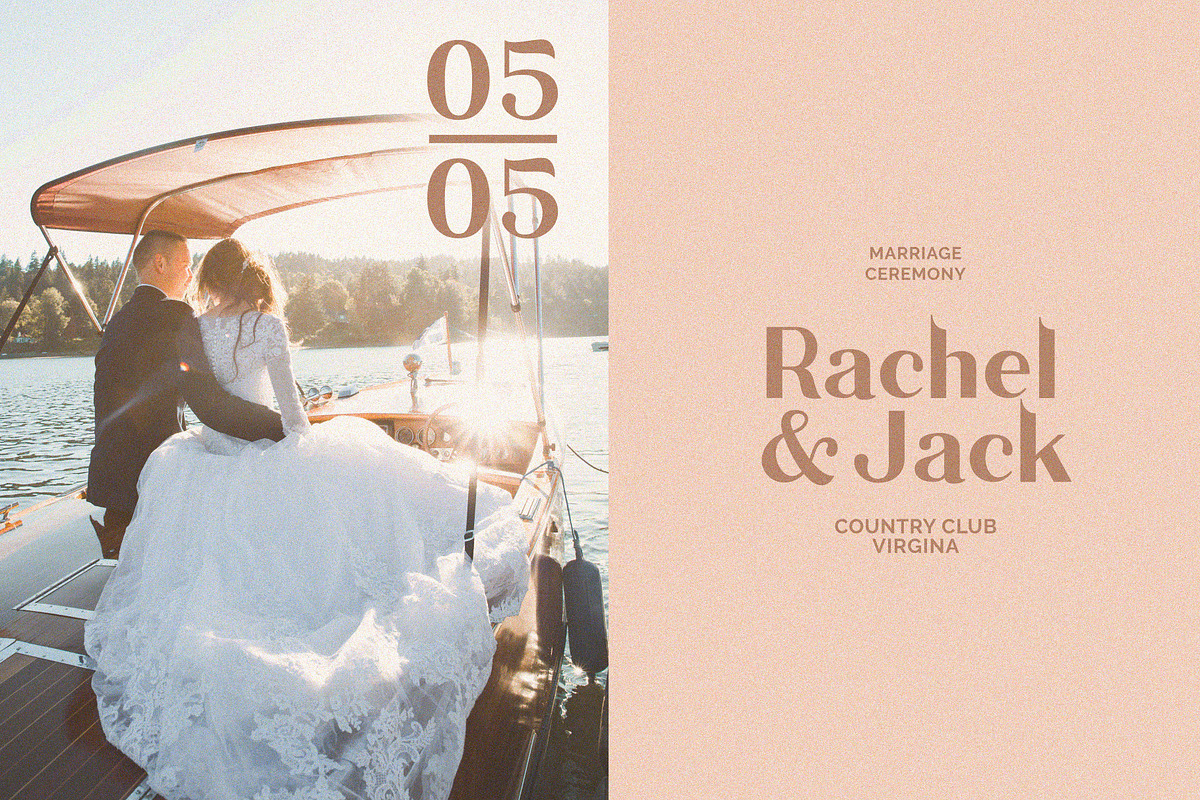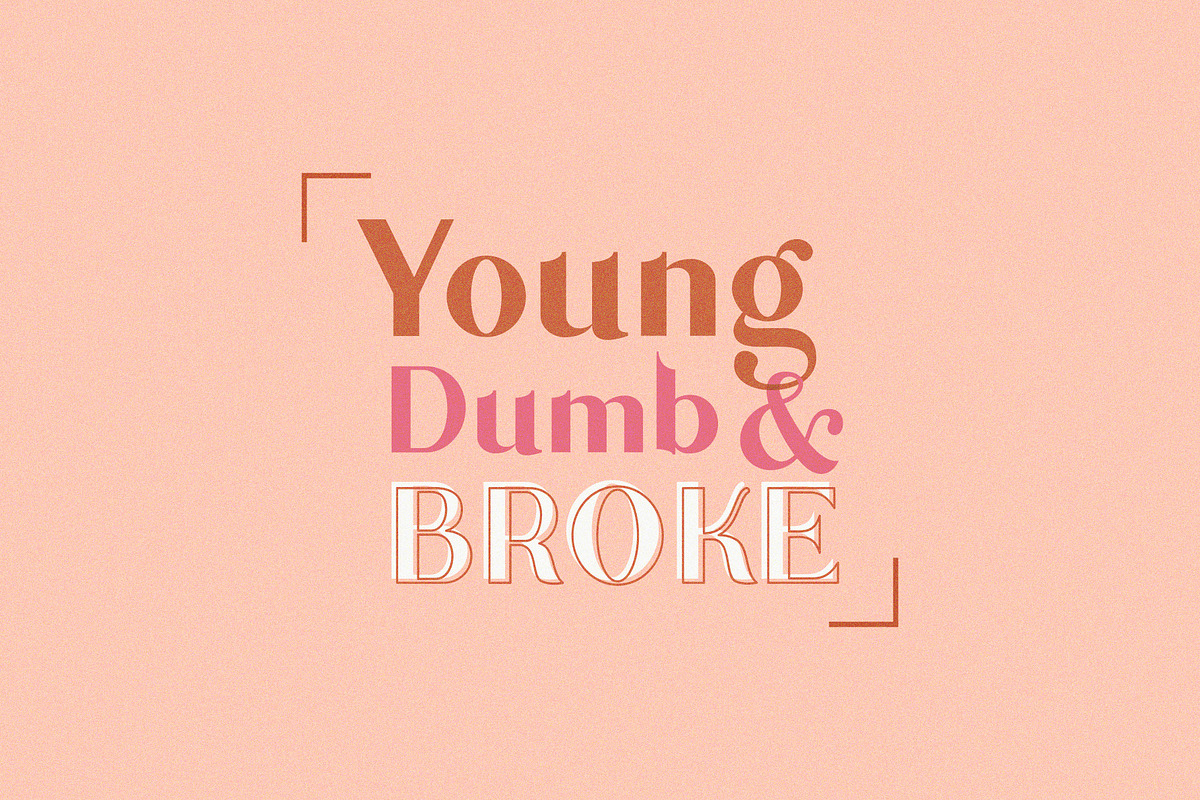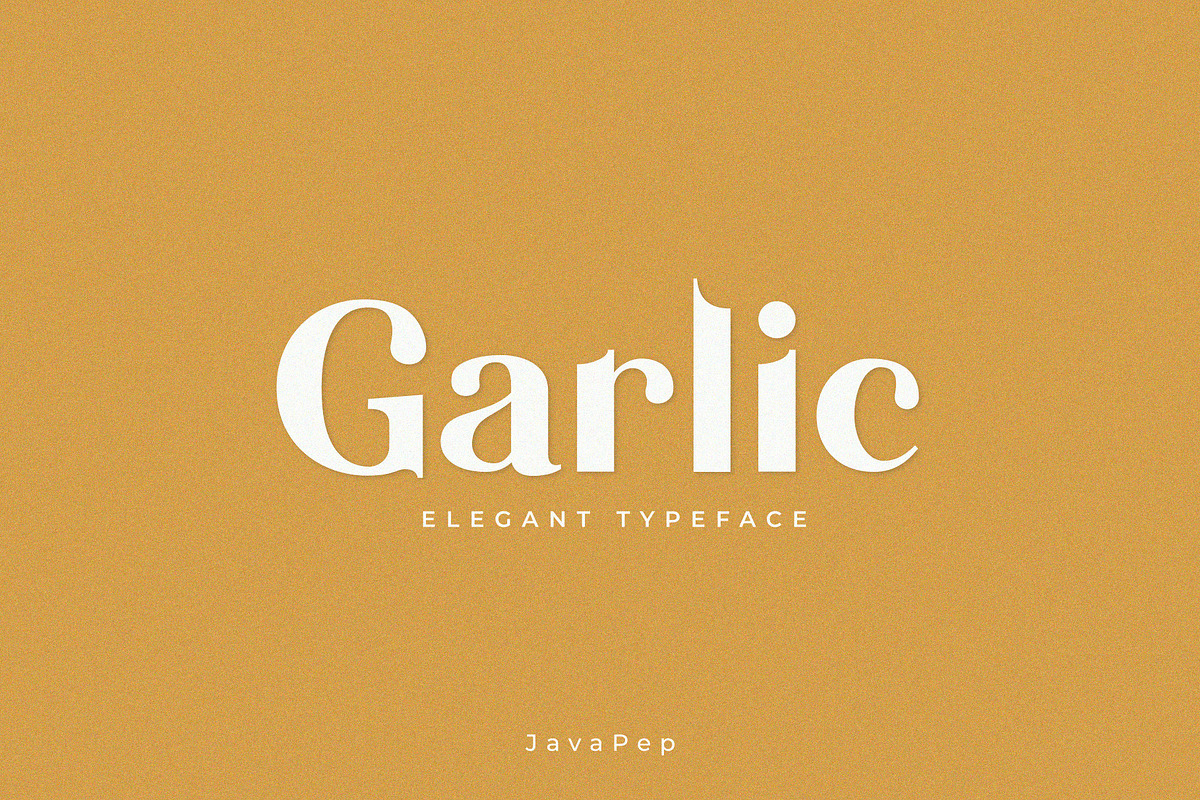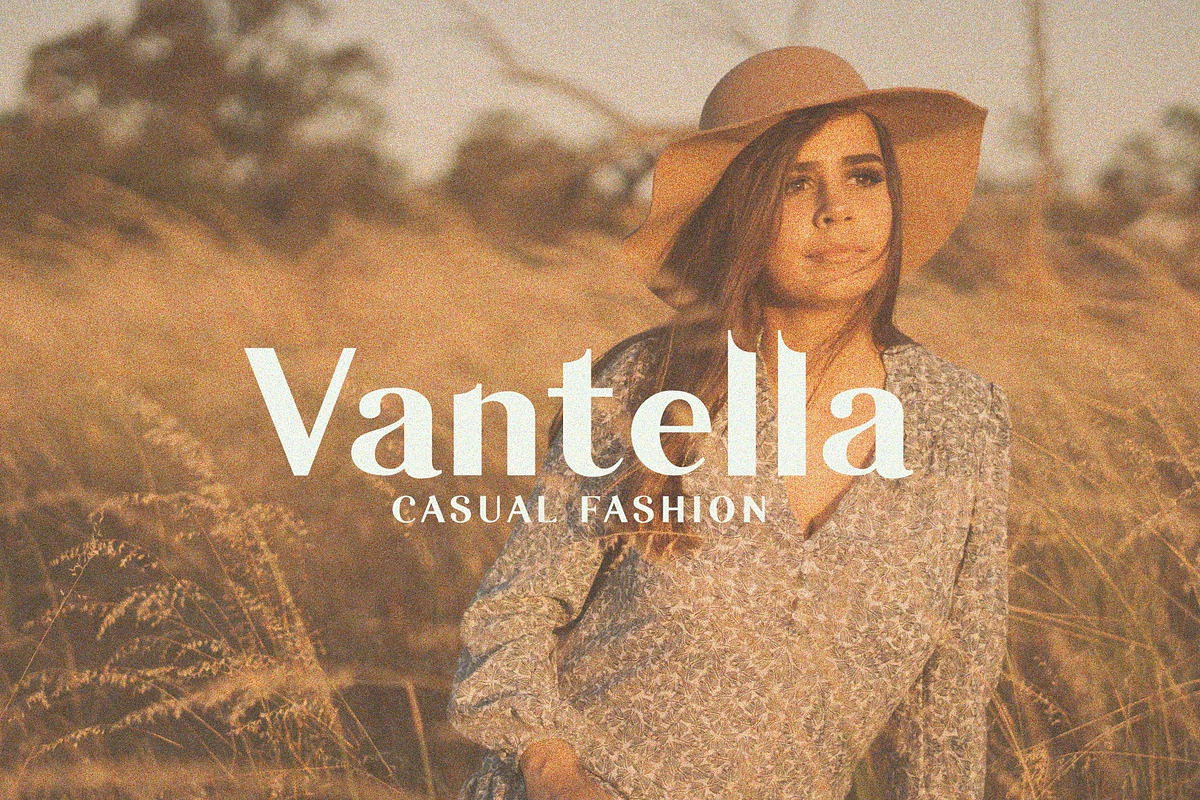
Garlic / elegant font
The proudly present an elegant font that always outstanding in every your project design. Garlic font is a versatile typeface that perfect for designing a headline, title, wedding invitations, logotype, quotes, advertisements, and more. Garlic font offered 4 styles set such as regular, italic, outline regular, and outline italic so you can be combining to make a more elegant and beautiful design.
Multilingual, support 17 languages